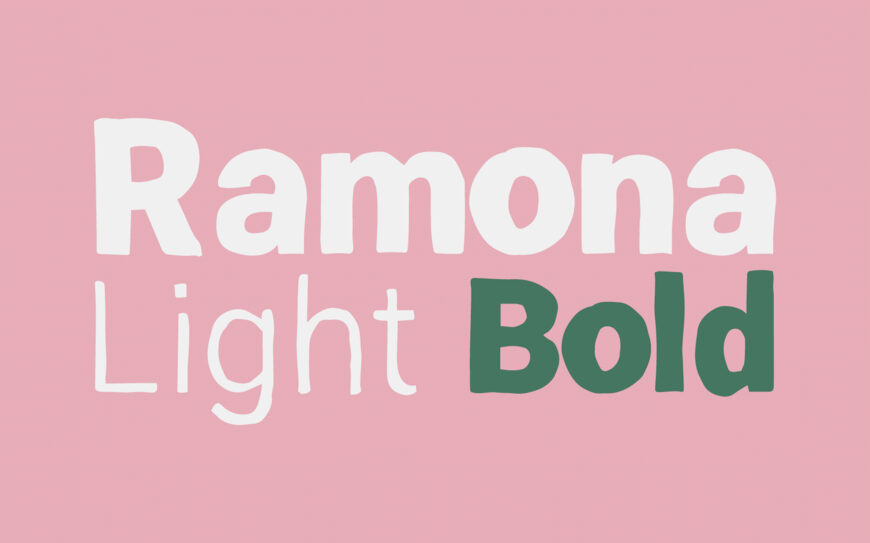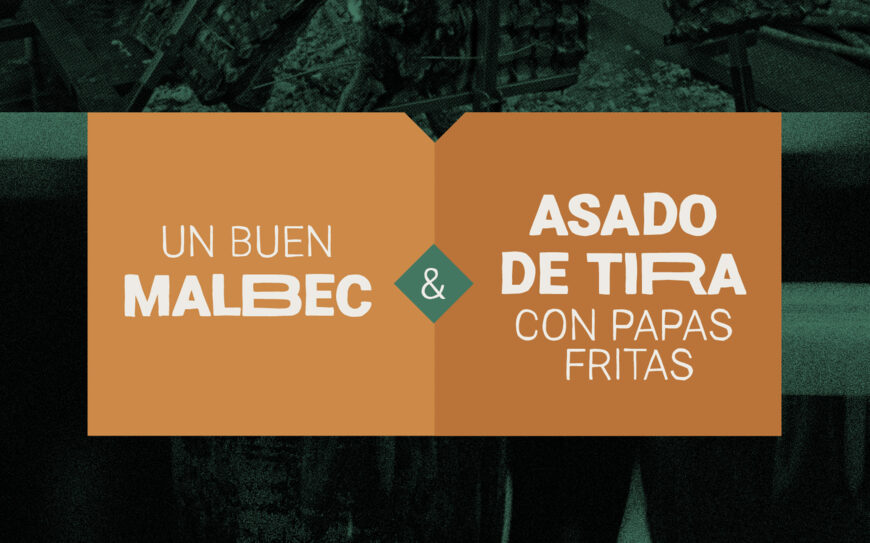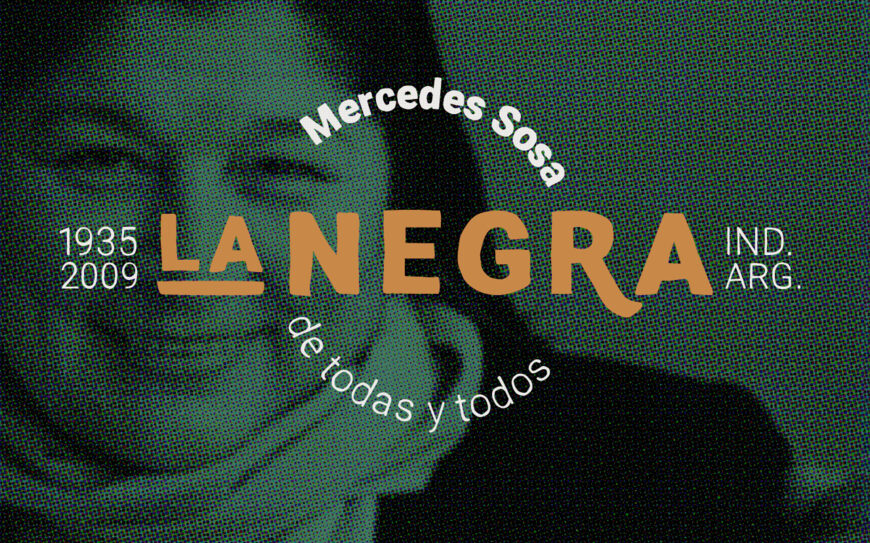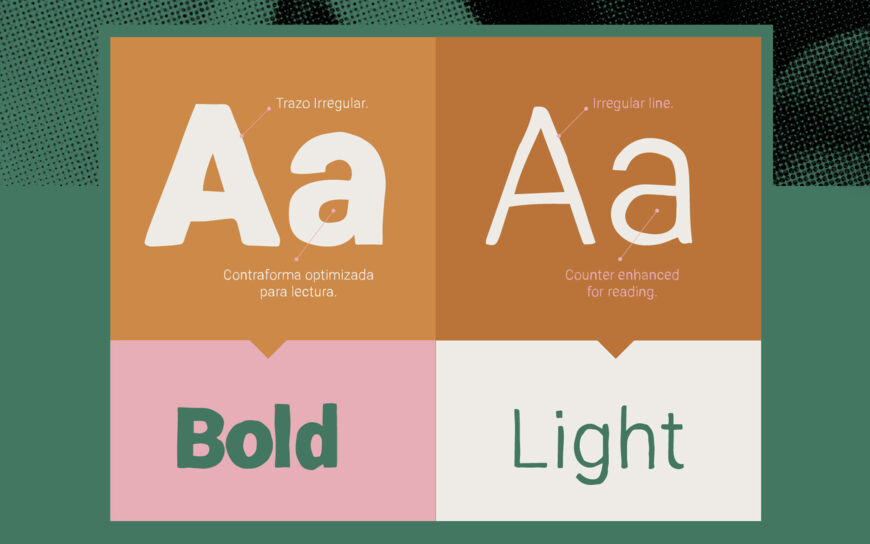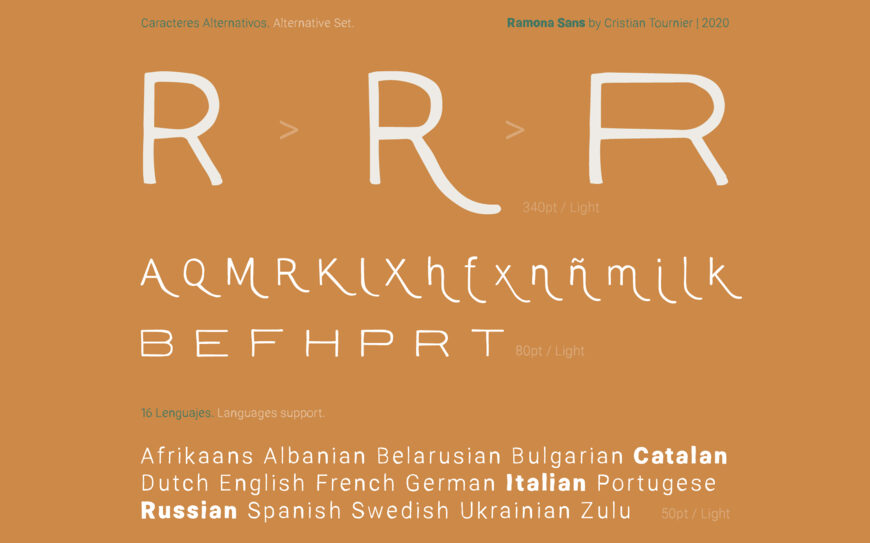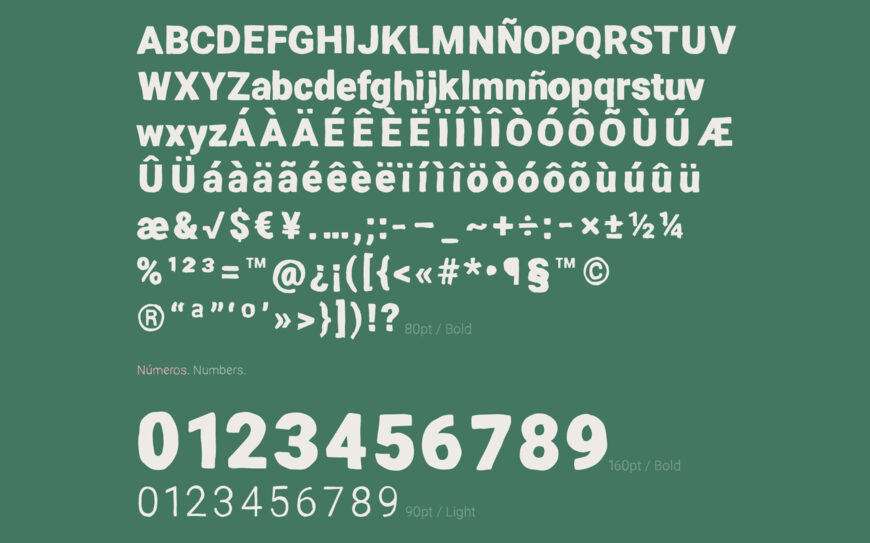
Ramona is a type family developed by Cristian Tournier in 2020. Inspired in argentine famous folk songwriter Mercedes Sosa, offers in its character map uppercase and lowercase glyphs, diacritical marks and a variety of alternative characters.
Its remarkable irregular outlines presents features that simulate handcrafting making it perfect for warm and friendly communications. Ramona contemplates two weights, Light and Bold, that help in the process of makin harmonic publications and generate visual contrast. Ideal for headlines or highlights in posters, books, magazines, promotional material, advertising, branding or any text that needs to have its own personality.